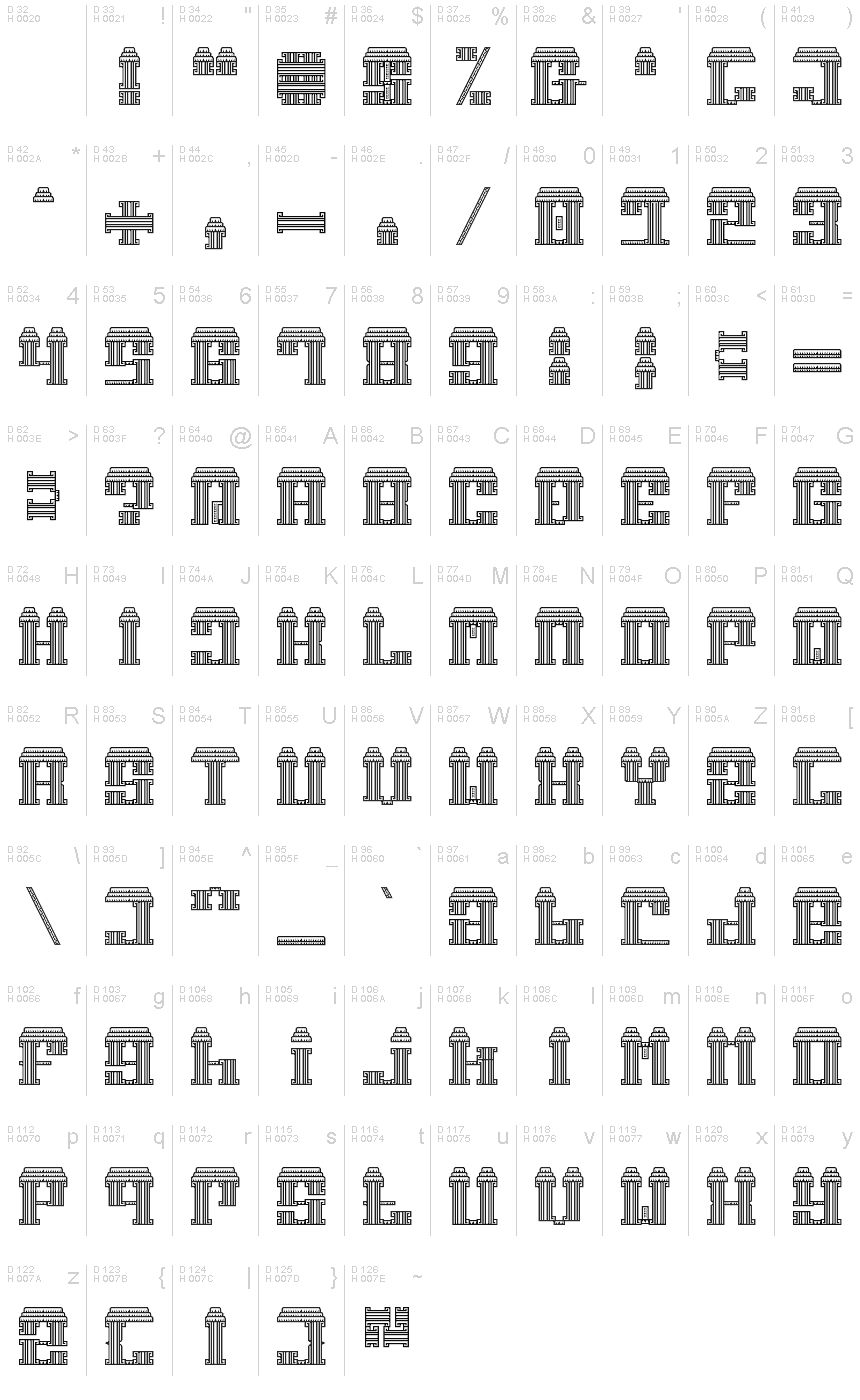
Temple of Gong Regular
The Zeph-iest of designs - a gaggle of Roman columns with gongs stacked on top. :D
Designer description: The Zephiest of designs.